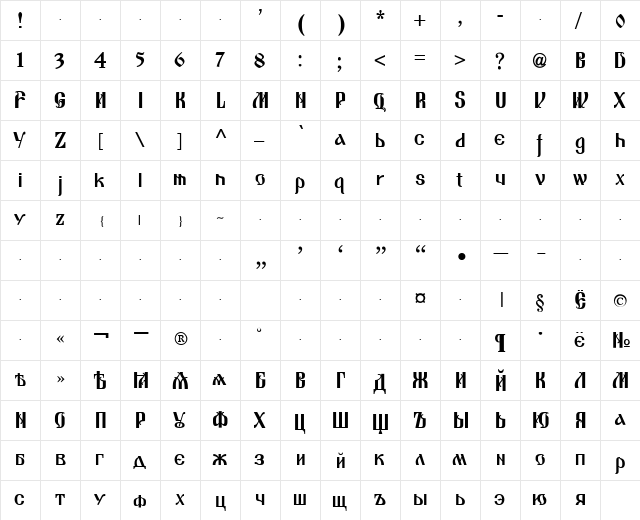
OldCyr Bold
Design Context for OldCyr Typeface
OldCyr is a composed and adaptable typeface that performs quietly and consistently across a wide range of design contexts. The heavy weight commands attention and anchors typographic hierarchies.